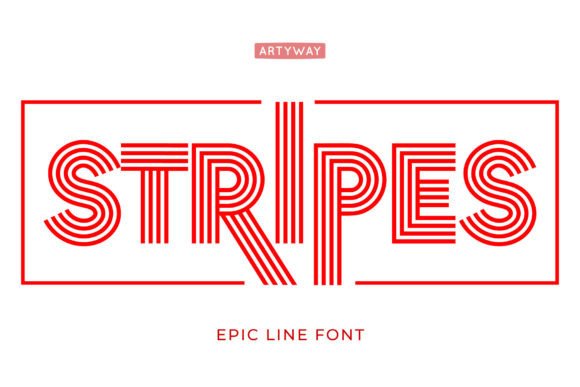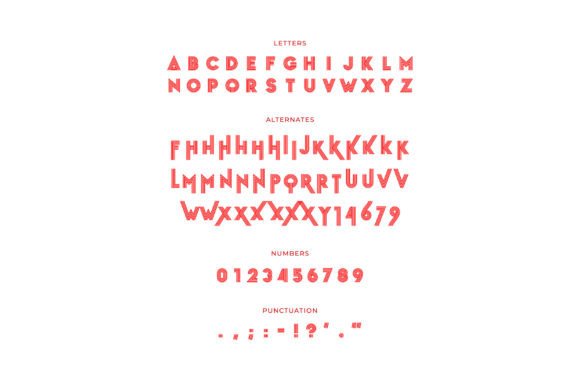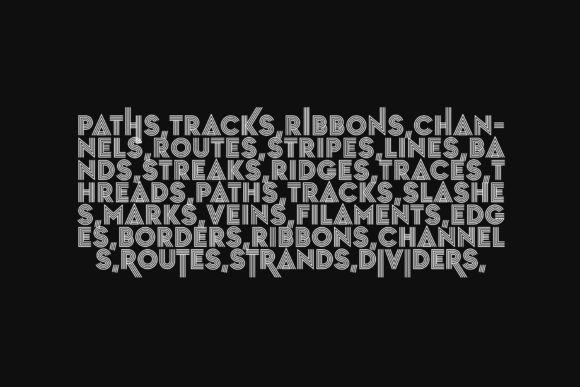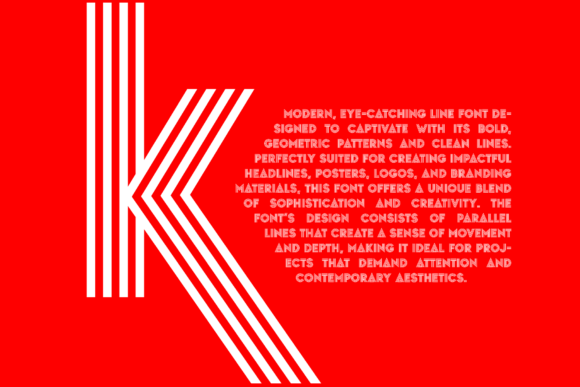
Stripes Font
About the Stripes Font
Let us introduce you to Stripes Font, where timeless design meets modern craftsmanship. Eye-catching lines font designed to captivate with its bold, geometric clean lines. Perfectly suited for creating impactful headlines, posters, logos, and branding materials, this font offers a unique blend of sophistication and creativity.
The font design consists of parallel lines that create a sense of movement and depth, making it ideal for projects that demand attention and contemporary aesthetics.
This typeface is perfect for graphic designers, creative professionals, and brands looking to stand out with a distinct visual style. Whether you’re working on a futuristic tech brand, a fashion campaign, or a vibrant event poster, STRIPES provides the versatility and dynamism needed to make your text pop